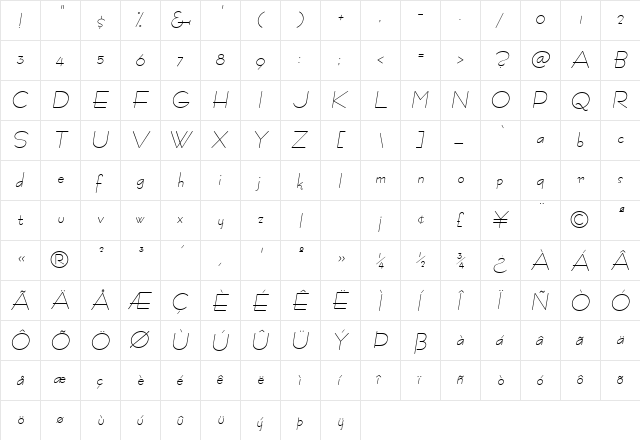
Fashion Oblique
Design Context for Fashion Typeface
Fashion takes a measured approach to typography — its balanced proportions and neutral character make it a reliable workhorse for both digital and print work. The slanted form adds forward momentum and visual energy.
Pro Tip: Try Fashion for annotation and caption copy alongside an upright companion — the contrast in angle creates a dynamic but ordered typographic system.